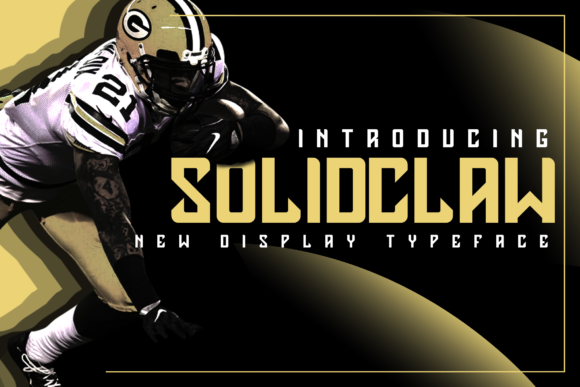
Introducing Solidclaw, the audacious and dazzling display font that's ready to ignite your designs with raw power and an undeniable modern flair. Crafted with precision by the talented ovoz.graphics, Solidclaw is more than just a font – it's a gateway to captivating designs that leave a lasting impact.
With its bold and striking characters, Solidclaw commands attention on billboards, posters, social media graphics, and any other platform where you need to make a statement. Its distinct personality shines through, whether you're creating logos, headlines, or eye-catching promotional materials.
Solidclaw is not just a pretty face; it's a workhorse that adapts seamlessly to your creative vision. Experiment with different weights and styles to achieve the perfect balance of boldness and finesse. The possibilities are endless, limited only by your imagination.
Join the creative revolution and let Solidclaw elevate your designs to new heights. Unleash your inner artist and create captivating visuals that resonate with your audience, leaving them awestruck and wanting more. Embrace the power of Solidclaw and watch as your designs transform into masterpieces.